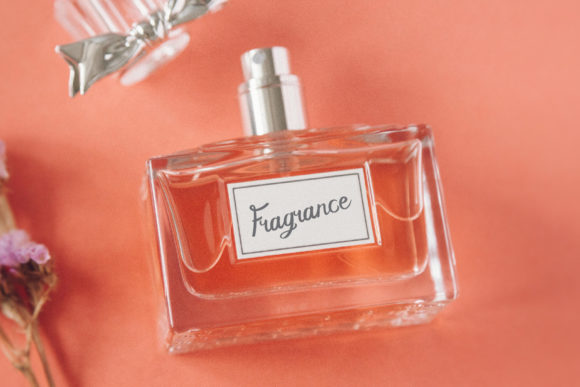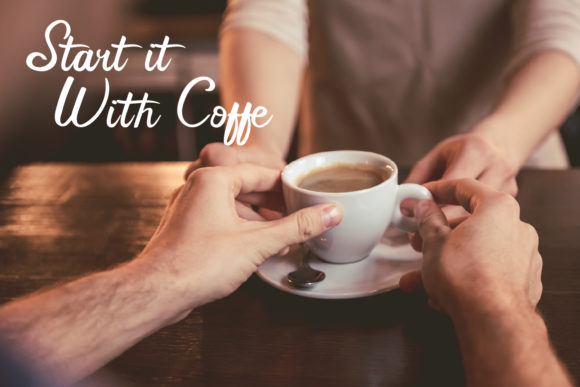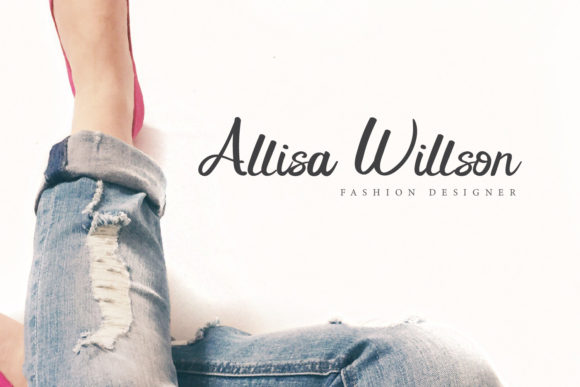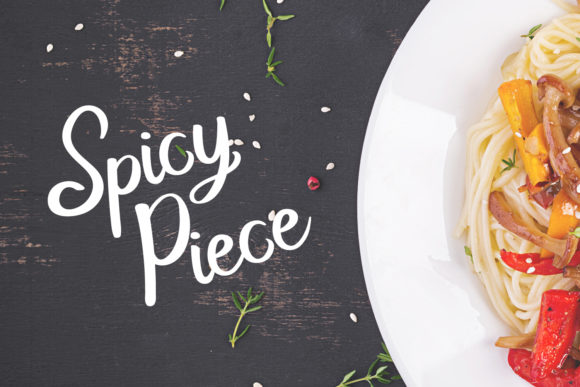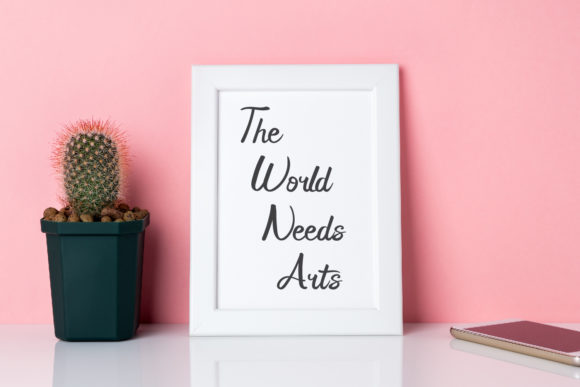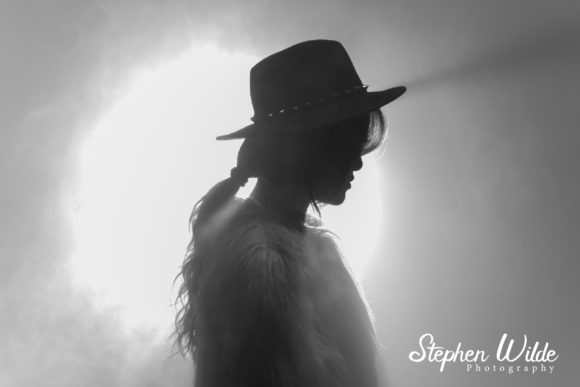
Introduction to Moonlica Font
Have you ever stared at a blank canvas, trying to bring your creative vision to life, but struggling to find the perfect design element to set the tone for your project? This is where the Moonlica Font comes in – a delicate and elegant handwritten font that has the power to elevate even the most basic design to a work of art.
With its distinct and well-rounded letters, the Moonlica Font is a masterpiece that can be used in a wide range of creative projects, from wedding invitations to social media graphics. Its versatility and high-quality design make it a valuable resource for designers who want to add a touch of sophistication and elegance to their work.
Key Features of Moonlica Font
- High-quality, elegant design suitable for creative projects and design resources.
- Transparent background and customizable text effects for versatile design applications.
- Perfect for use in graphic design, digital art, and other creative endeavors requiring a unique touch.
Honest Review: Moonlica Font
I recently stumbled upon the Moonlica Font while searching for a design resource for a creative project. I was immediately drawn to its elegant and whimsical feel, making it perfect for a range of applications from digital art to print materials.
What works well with the Moonlica Font is its high quality and versatility. The font comes in a variety of styles, each with its own unique charm. The transparent background option allows for seamless integration with any design, making it a valuable asset for designers.
Pros and Cons:
- ✨ High quality and versatile font options
- ✨ Transparent background option for seamless integration
- ⚠️ Some users may find the font too ornate for certain design applications
Overall, I’m impressed with the Moonlica Font and would definitely recommend it to designers looking for a unique and creative design resource. While it may have some limitations, the benefits far outweigh the drawbacks, making it a valuable addition to any design toolkit.
Common Use Cases for Moonlica Font
The Moonlica Font is perfect for a variety of creative projects, including invitations, posters, and business cards. Its high-quality design and transparent background make it ideal for use in design projects where precision and elegance are key.